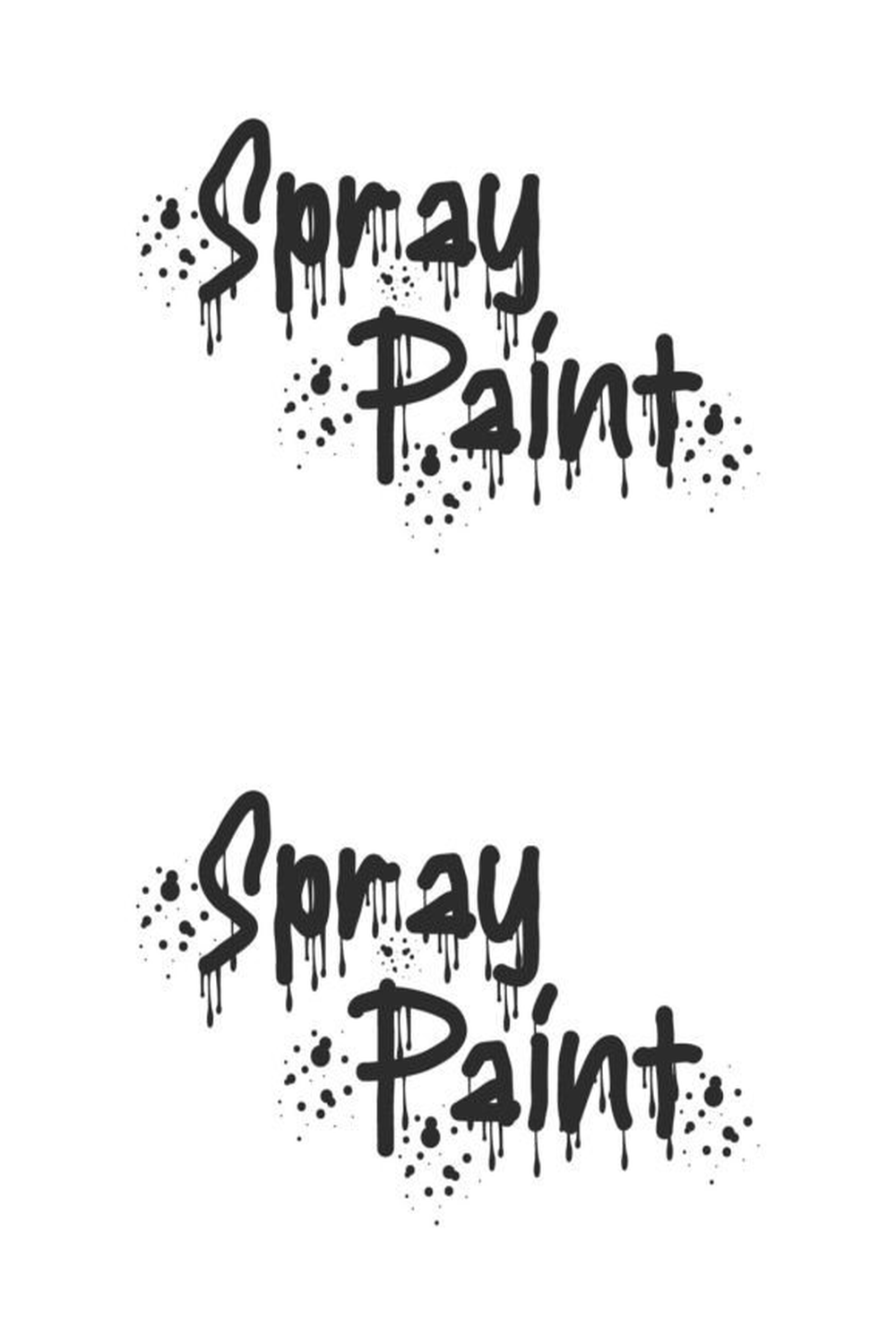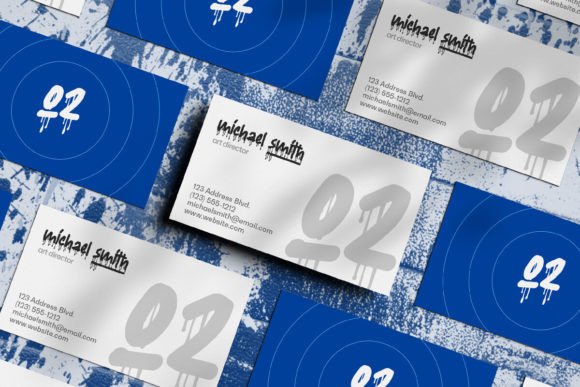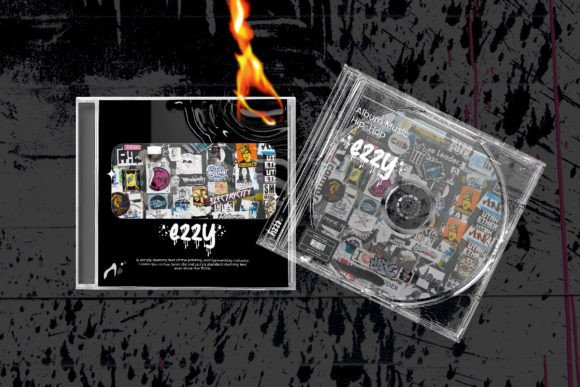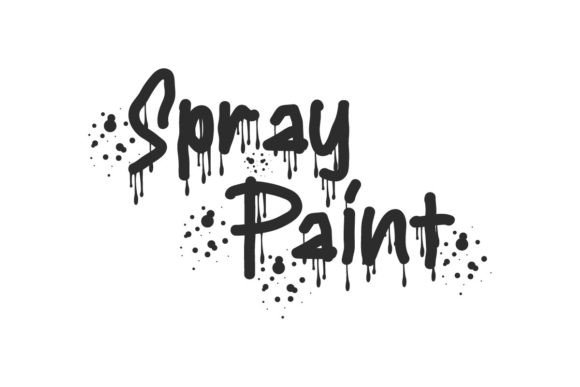
Spray Paint Font
About the Spray Paint Font
Introducing the Spray Paint Font, a beautifully crafted typeface designed to elevate your creative projects. Spray Paint is a graffiti street display font with the visuals of dipping spray paint. The birth of this font inspiration from street art, makes awesome combinations for many design projects, business cards, covers, product packaging, posters, screen printing, wall art and so much more.
Spray Paint Font Usage Examples